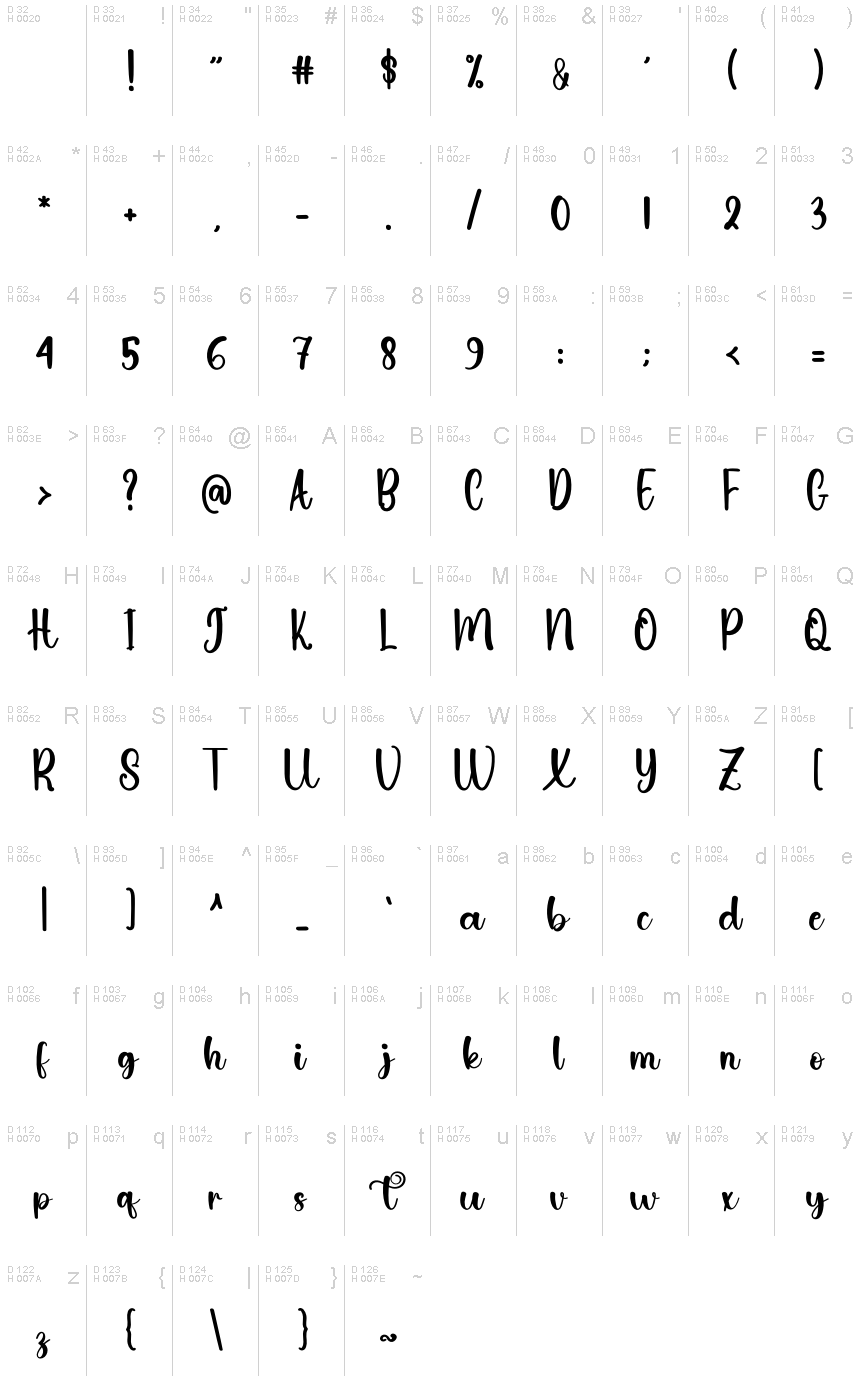
Sunday Hunting
Graceful and captivating, Sunday Hunting by PiPi Creative is a handwritten font that exudes a charming, organic feel. Its flowing strokes and playful ligatures invite a sense of warmth and personality, perfectly capturing the essence of handcrafted lettering. This versatile typeface seamlessly blends modern elegance with a touch of rustic allure, making it a versatile choice for a wide range of design projects.
Sunday Hunting's unique character shines through in its expressive, slightly slanted letterforms and delicate line variations. This font's inherent versatility allows it to seamlessly transition between sophisticated branding, captivating editorial layouts, and inviting stationery designs. Its adaptability effortlessly elevates any project, infusing a touch of handcrafted elegance that resonates with audiences.